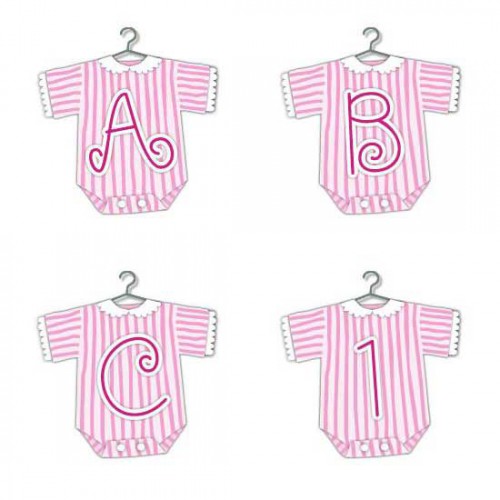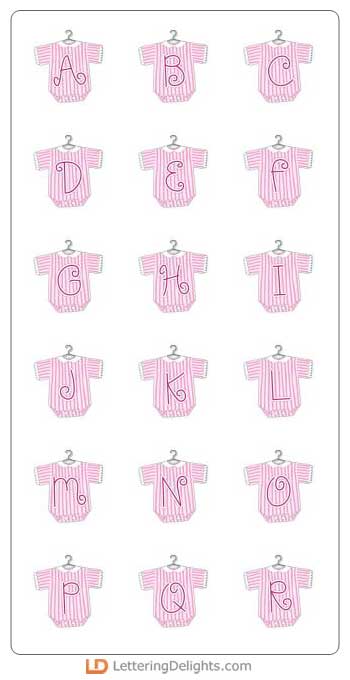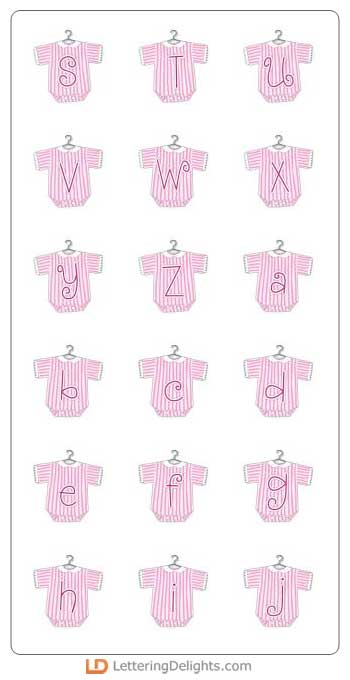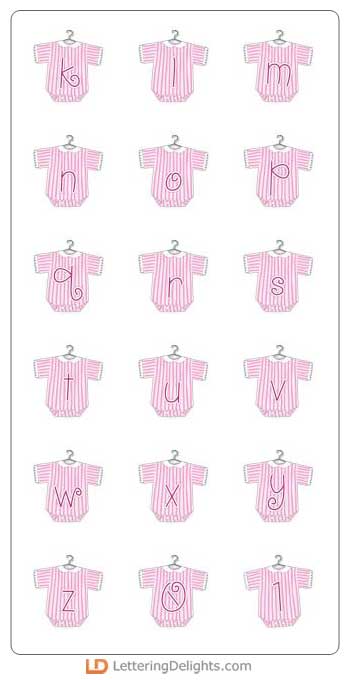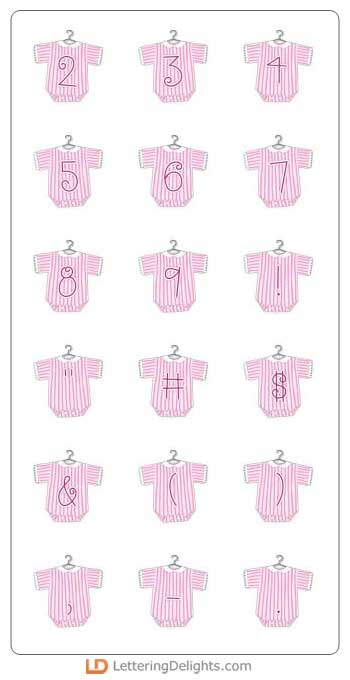
Onesie Girl - AL
Everyone knows the onesie outfits we put on our babies. This alphabet is made up of pink pinstriped onesies with the letter in the middle. It's adorable.